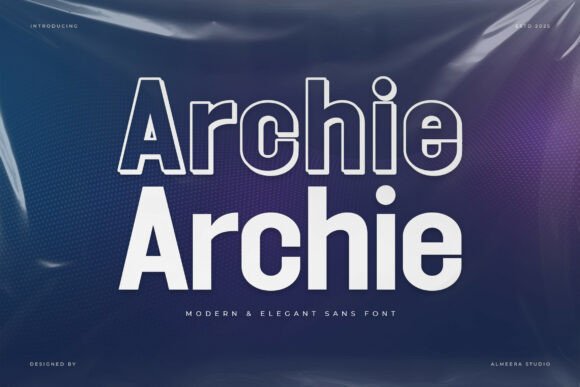
The Designer’s Delight: Exploring the Archie Font
I still remember the frustration of working on a project, hours spent searching for the perfect font, only to come up empty-handed. My client wanted a clean, modern look that would elevate their brand, but nothing seemed quite right. That’s when I stumbled upon the Archie font, a game-changer in the world of sans-serif fonts. With its crisp lines and versatile design, Archie has become a go-to for editorial headlines, web interfaces, product packaging, and fashion campaigns.
A First Impression: What I Love About Archie
So, what makes Archie so special? Here are a few things that caught my attention:
• ✨ Clarity and Legibility: Archie’s clean lines and well-spaced letterforms make it easy to read, even at smaller sizes.
• ✅ Versatility: This font adapts seamlessly to various design contexts, from digital screens to print materials.
• 💡 Unique Character: Archie’s charm lies in its subtle quirks and distinctive letterforms, adding a touch of personality to any design.
The Not-So-Perfect Font: A Few Quirks
No font is perfect, and Archie is no exception. Here are a few things to keep in mind:
• 🤔 Limited Serif Options: As a sans-serif font, Archie might not be the best choice for projects requiring a traditional serif look.
• ⚠️ Glyph Limitations: While Archie offers a range of glyphs and OpenType features, it might not have every special character or symbol you need.
The Story Behind Archie: Designer Inspiration
While the true story behind Archie’s creation might be unknown, it’s easy to imagine a designer frustrated with the same old fonts, seeking to create something fresh and exciting. Perhaps they wanted to craft a font that would blend seamlessly into digital and print designs, offering a unique character without being too showy. Whatever the inspiration, Archie has undoubtedly become a valuable addition to the world of typography.
Font Name Archie Font
Author Almeera Studio
What makes Archie suitable for editorial headlines? Archie’s clean lines, legibility, and unique character make it an excellent choice for editorial headlines, adding a touch of sophistication and style to any publication.
Can I use Archie for web interfaces and digital projects? Absolutely! Archie’s versatility and clarity make it well-suited for digital use, from web interfaces to mobile apps and more.
Is Archie a good choice for product packaging? Yes, Archie’s unique character and clean design make it an excellent choice for product packaging, helping your brand stand out on store shelves.
Can I use Archie for fashion campaigns? Archie’s stylish and sophisticated feel makes it a great fit for fashion campaigns, adding a touch of elegance and refinement to your designs.